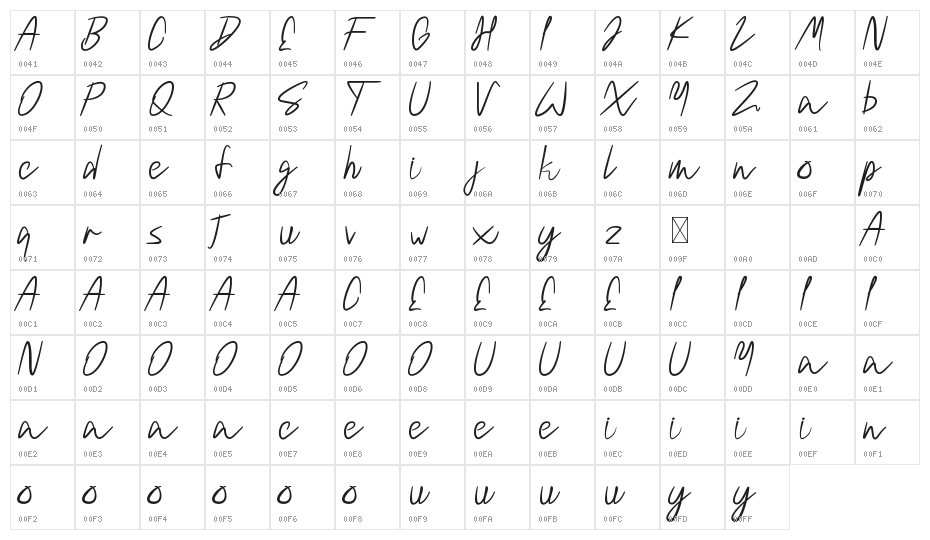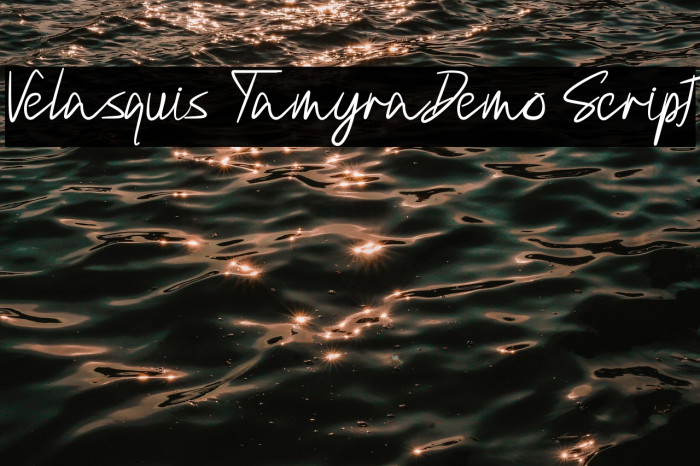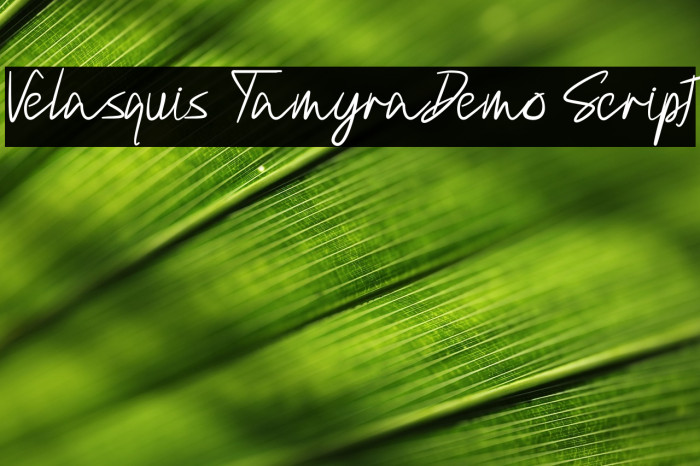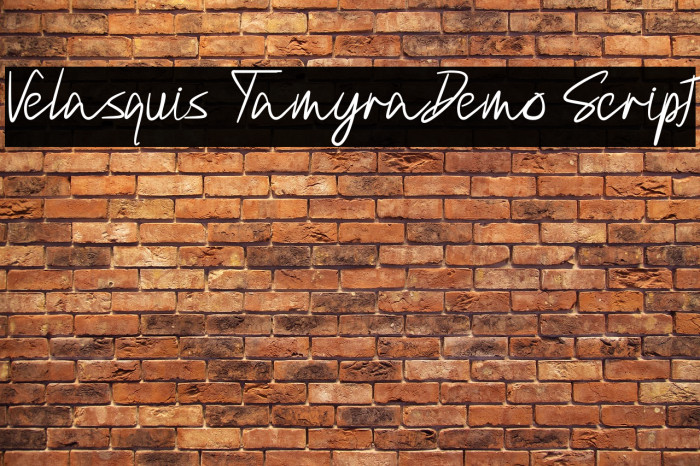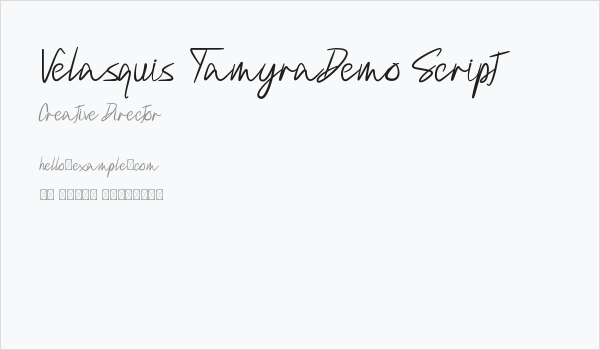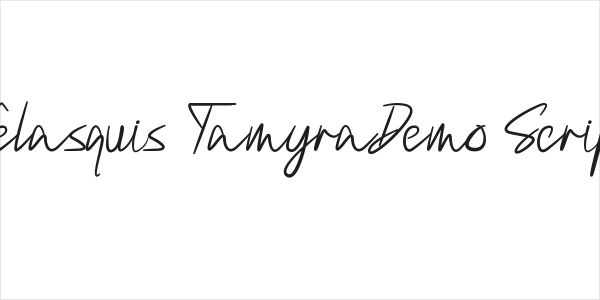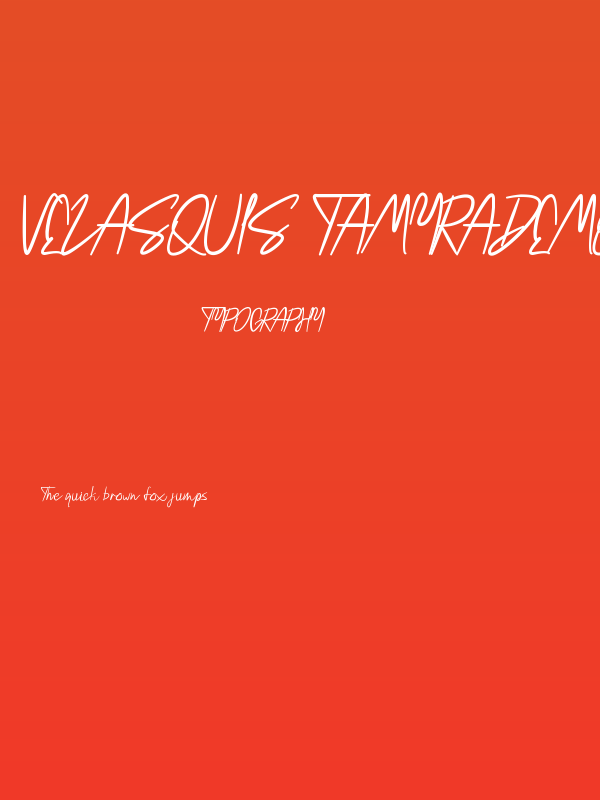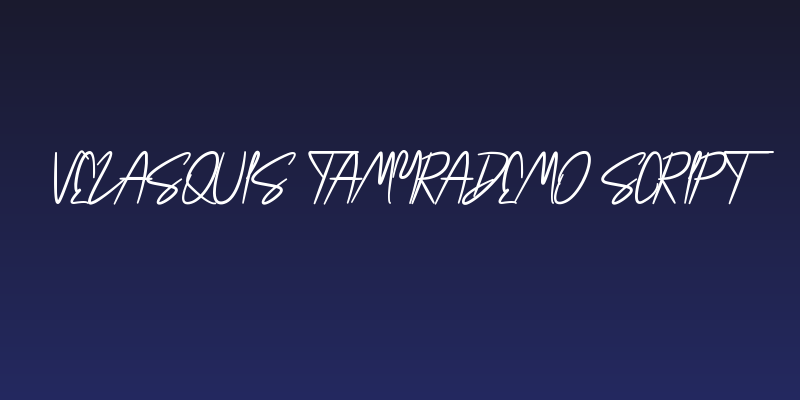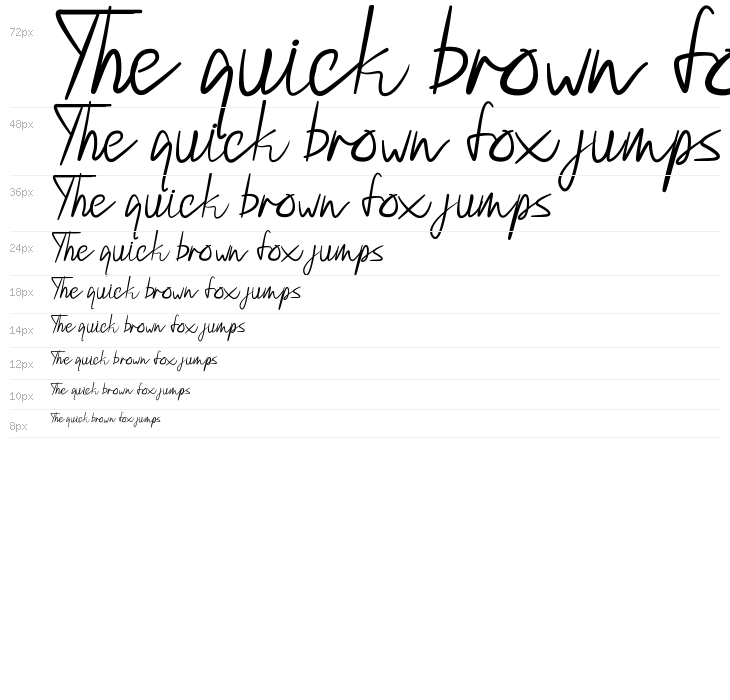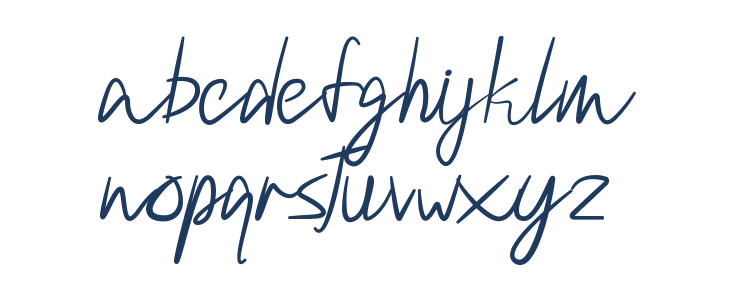
Velasquis TamyraDemo Script Font
Velasquis TamyraDemo Script Description
This font exudes a dynamic and expressive style, characterized by its fluid, cursive script that mimics natural handwriting. The letters are interconnected with smooth, flowing strokes, giving it an elegant yet casual appearance. The uppercase and lowercase letters maintain a consistent slant, enhancing the handwritten feel. The strokes vary in thickness, adding a touch of sophistication and movement to the text. This font is ideal for projects that require a personal touch, such as invitations, greeting cards, or branding materials that aim to convey warmth and creativity.
| Use Case | Logos, Headlines, Personal projects |
| Proposed Projects | Ideal for invitations, greeting cards, personal branding, and creative projects. |